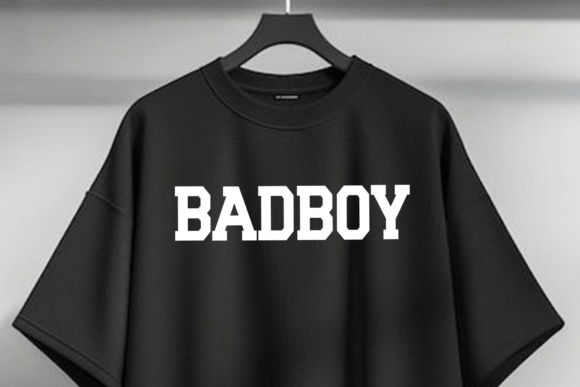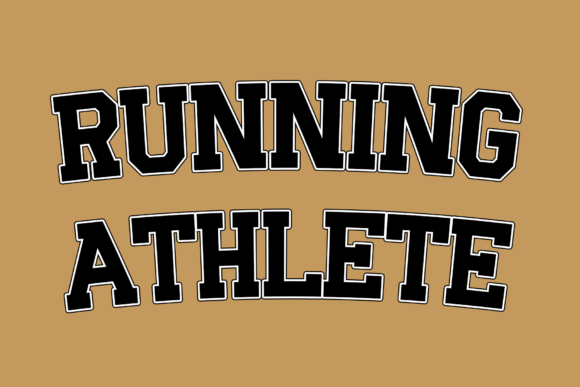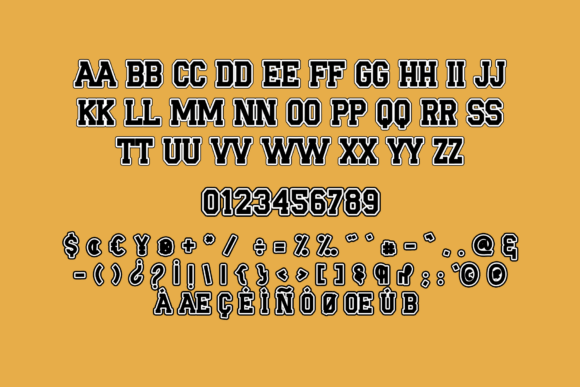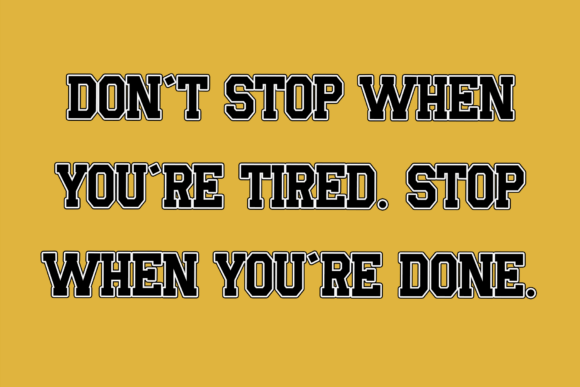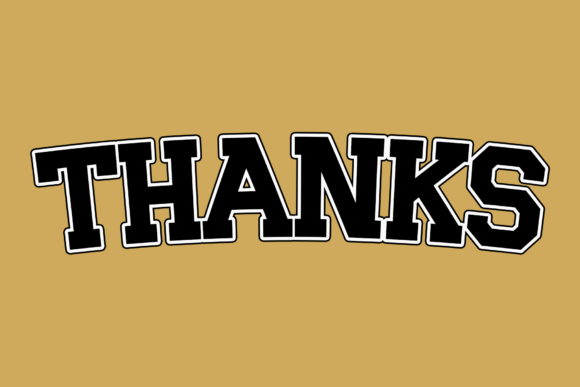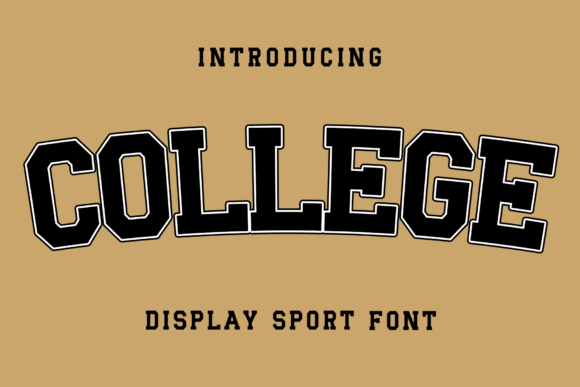
Introducing College Font: The Cool Slab Serif Font for Unique Designs
Are you tired of using the same old fonts for your designs? Look no further! College Font is a cool slab serif font that is carefully crafted to add a touch of uniqueness to your designs. With its modern and edgy look, this font is perfect for designers and crafters who want to create something that stands out from the crowd.
What is College Font?
College Font is a slab serif font that is designed to be cool, modern, and versatile. Its unique design makes it perfect for a wide range of applications, from writing letters and invitations to creating titles and labels for food products. The font is carefully crafted to ensure that it is easy to read and understand, making it perfect for both digital and print designs.
Features of College Font
College Font has several features that make it a great choice for designers and crafters. Some of its key features include:
- Unique Design: College Font has a unique slab serif design that sets it apart from other fonts. Its modern and edgy look makes it perfect for designers who want to create something that stands out.
- Versatility: College Font is a versatile font that can be used for a wide range of applications. Whether you want to create a letter, invitation, or title, this font is perfect for the job.
- Easy to Read: College Font is designed to be easy to read and understand. Its clear and concise design makes it perfect for both digital and print designs.
- High-Quality: College Font is a high-quality font that is designed to deliver exceptional results. Its careful craftsmanship ensures that it is perfect for professional designs.
Uses of College Font
College Font is a versatile font that can be used for a wide range of applications. Some of the most popular uses of this font include:
- Writing Letters: College Font is perfect for writing letters, whether you want to create a formal letter or a casual one.
- Creating Invitations: College Font is a great choice for creating invitations, whether you want to invite people to a party, wedding, or other event.
- Food Products: College Font is perfect for creating labels and titles for food products. Its modern and edgy look makes it perfect for packaging designs.
- Titles and Headings: College Font is a great choice for creating titles and headings for articles, blog posts, and other written content.
Why Choose College Font?
There are many reasons why you should choose College Font for your designs. Some of the most compelling reasons include:
- Unique Design: College Font has a unique design that sets it apart from other fonts. Its modern and edgy look makes it perfect for designers who want to create something that stands out.
- Versatility: College Font is a versatile font that can be used for a wide range of applications.
- High-Quality: College Font is a high-quality font that is designed to deliver exceptional results.
College Font is a cool slab serif font that is carefully crafted for a cool and unique design. With its modern and edgy look, this font is perfect for designers and crafters who want to create something that stands out from the crowd. Its versatility, high-quality design, and ease of use make it a great choice for a wide range of applications. Whether you want to write letters, create invitations, or design labels for food products, College Font is the perfect choice.